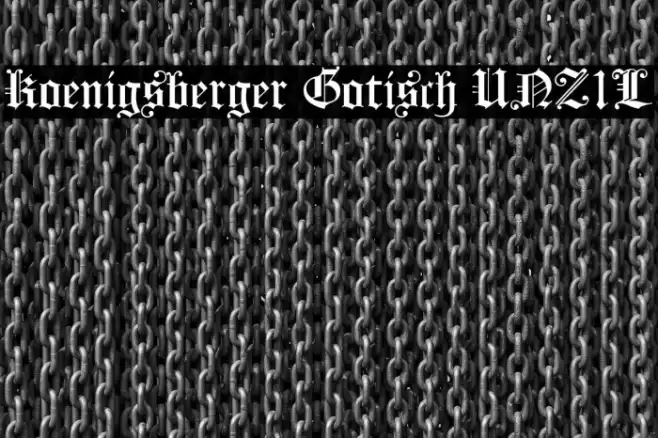
Koenigsberger Gotisch UNZ1L Font
Koenigsberger Gotisch UNZ1L Description
This font features a traditional blackletter style, characterized by its intricate and ornate design. The uppercase letters are adorned with elaborate flourishes and sharp angles, giving them a distinct medieval appearance. The lowercase letters maintain a consistent style, with bold strokes and pointed serifs that enhance the font's gothic aesthetic. The numerals are equally stylized, with a uniform thickness that complements the overall design. Special characters are crafted with the same attention to detail, ensuring a cohesive look across all elements. This font's historical and decorative qualities make it a standout choice for projects requiring a touch of old-world charm.
A traditional blackletter font with ornate, gothic design elements from Uncategorized fonts.
- Proposed Projects: Ideal for historical documents, wedding invitations, book covers, and branding that requires a vintage or medieval touch.
- Overall Style: Vintage
- Use Case: Logos, Headlines, Decorative text